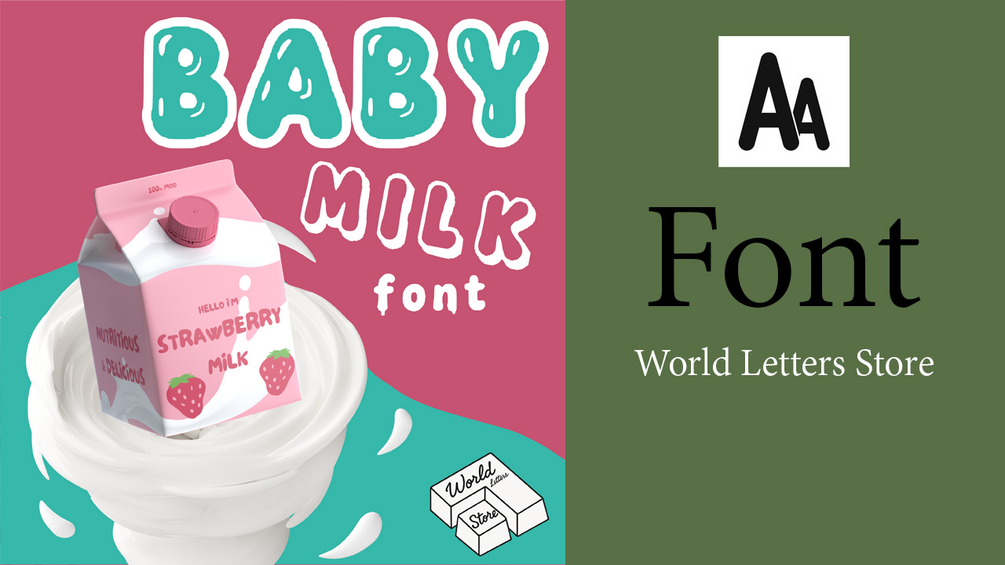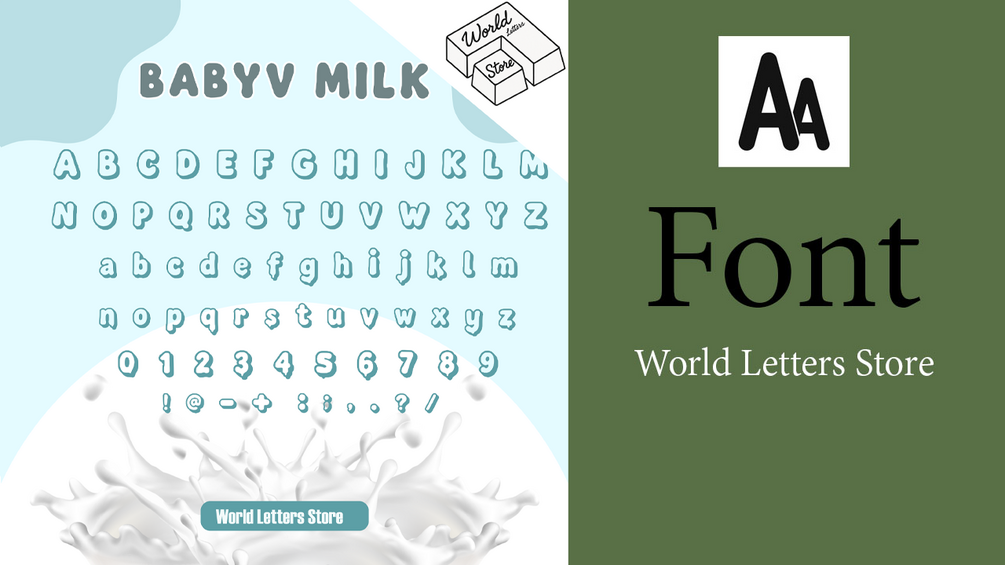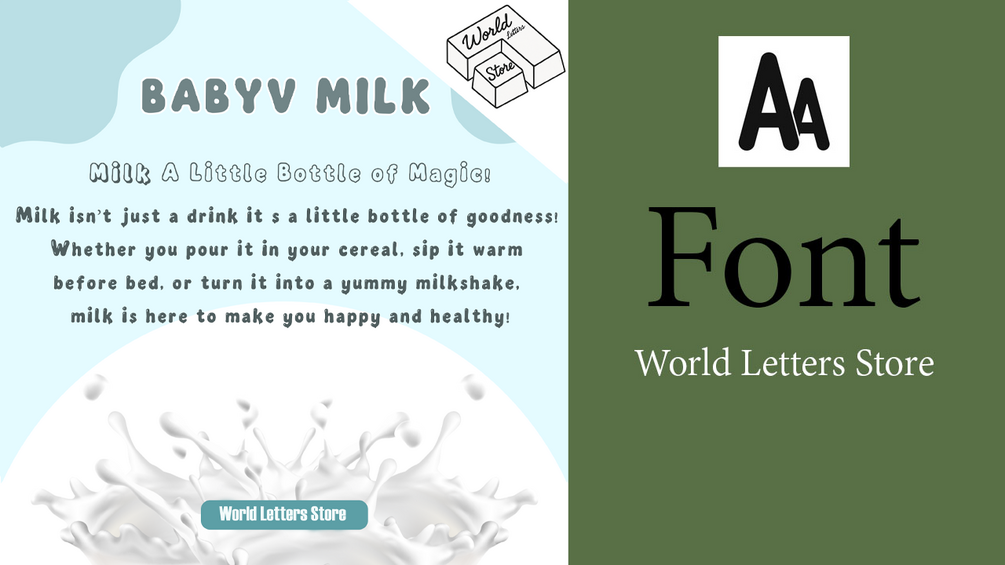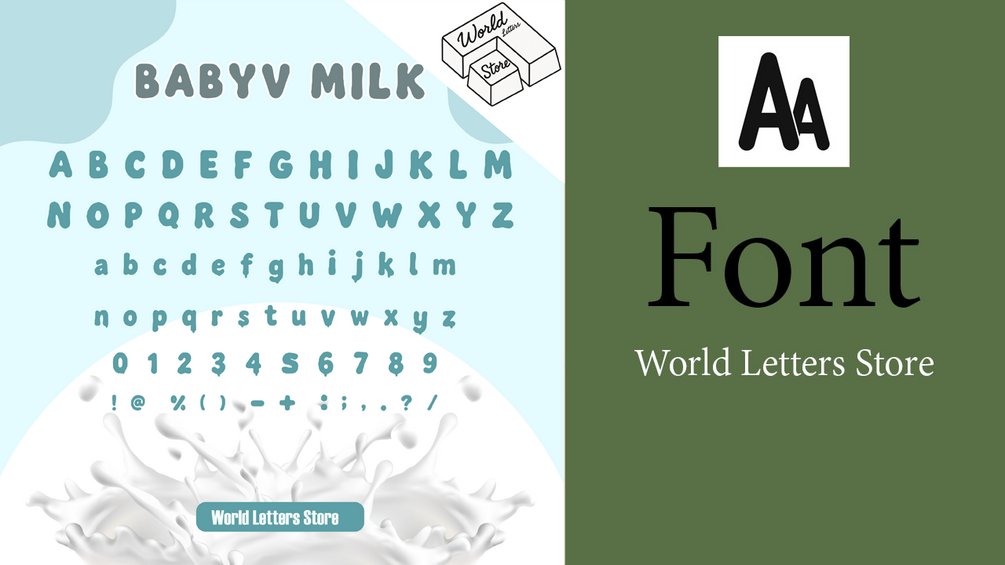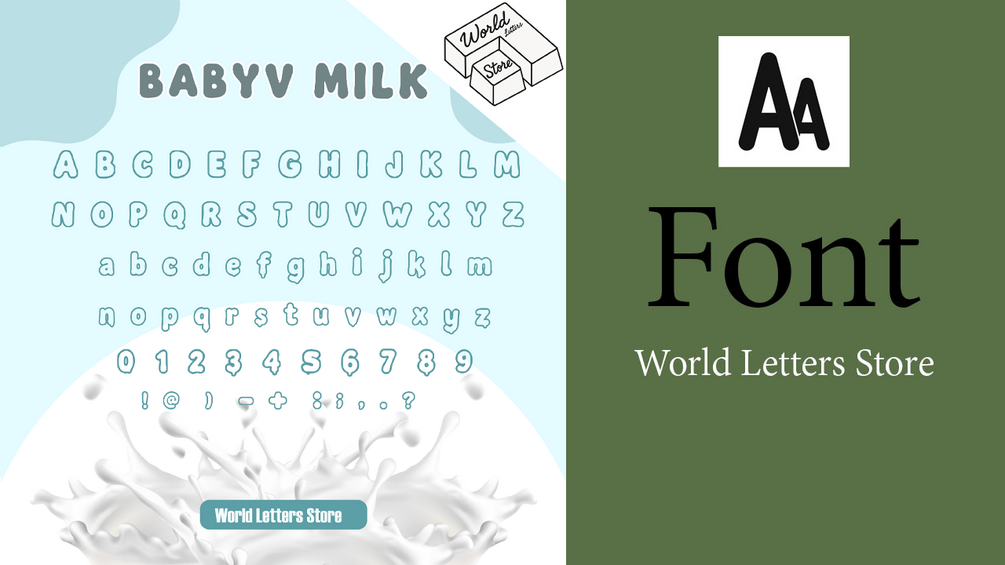
BabyMilk Font - Bubble Font - Shiny Font - Cute Fonts - BabyMilk Font - Retro Font - Fonts for Procreate - Fonts for computer, MacBook, iPad
Perfect for planners, logos, stickers, quotes, and digital products.